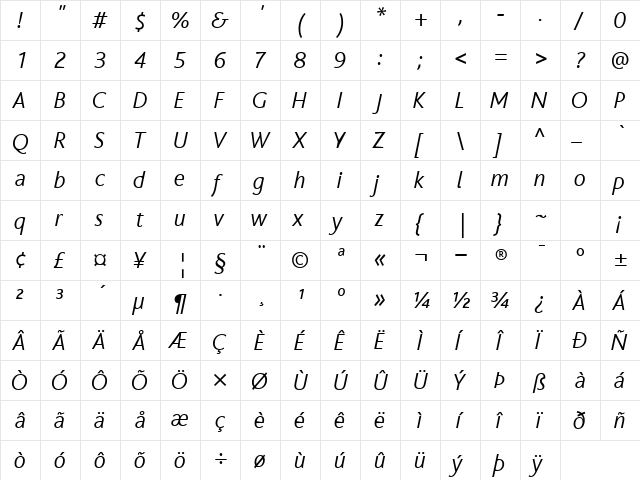
BlissLightItalic Regular
Design Context for BlissLightItalic Typeface
BlissLightItalic is a composed and adaptable typeface that performs quietly and consistently across a wide range of design contexts. Its italic angle brings a sense of urgency and motion to the letterforms. Its slender proportions lend an understated elegance to any composition.
Pro Tip: Try BlissLightItalic for annotation and caption copy alongside an upright companion — the contrast in angle creates a dynamic but ordered typographic system.